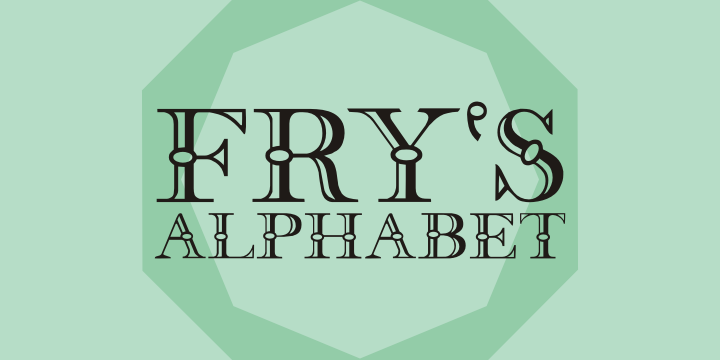
Fry's Alphabet
Designed by Paulo W, Fry's Alphabet is a display serif and historical font family published by Intellecta Design.
A revival from a classci font by Edmund Fry
Styles Display Serif, Historical